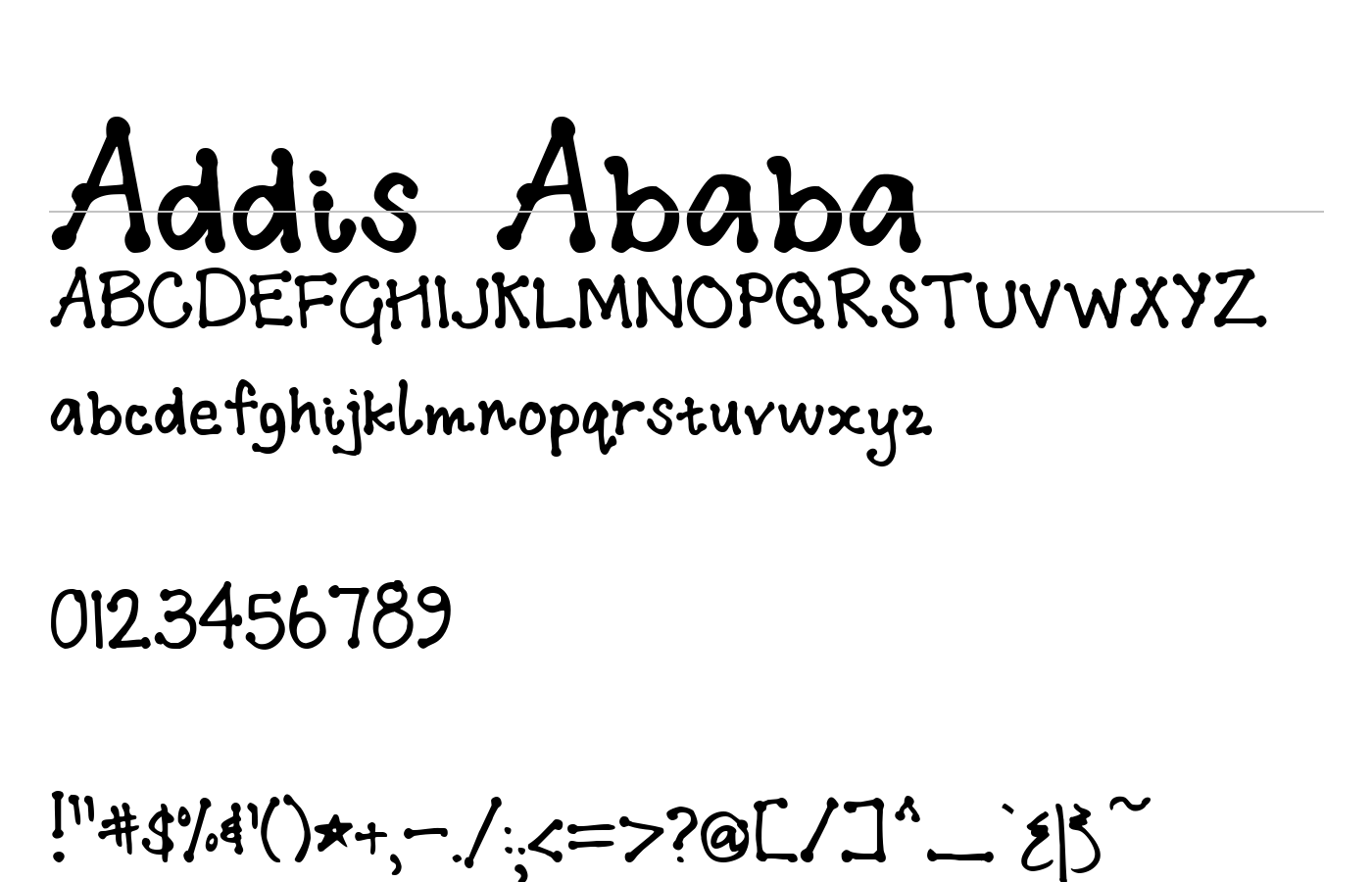
Addis Ababa is a playful and informal handwritten sans serif font with a whimsical, slightly irregular style that mimics natural pen strokes with rounded ends. Its medium weight and moderate x-height make it legible yet lively, while the quirky letterforms give it a friendly, approachable personality ideal for casual branding, children’s content, and creative projects. This font works best in logos, posters, and headlines where a warm and personal touch is desired.
Addis Ababa Font
About Addis Ababa Font
| Designer | Kimberly Geswein |